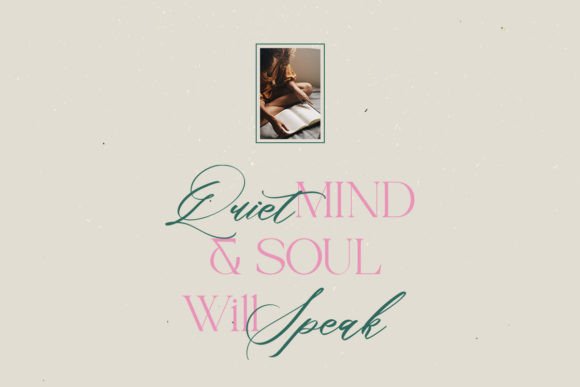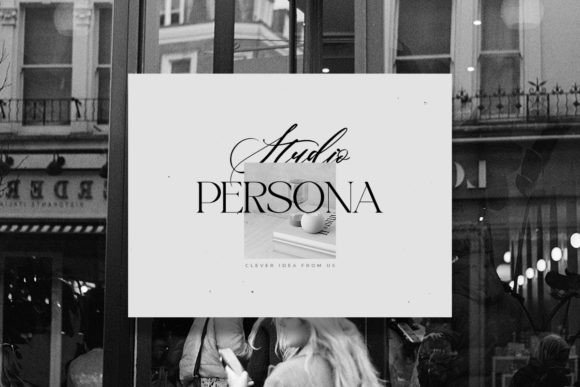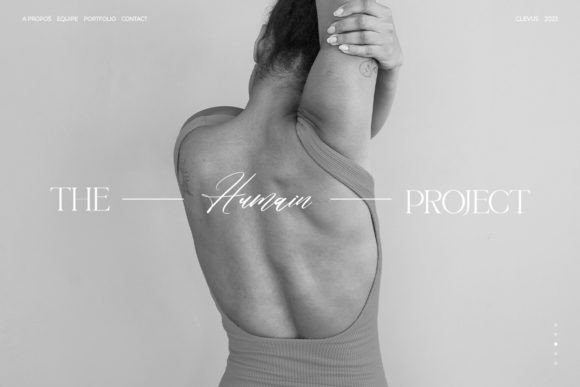
She Lost Her Mind Font
She Lost Her Mind Font Duo is a unique font design consisting of a combination of a classic serif font and a classic script handwritten font. It is specifically created to cater to the design needs of elegant and feminine themes, such as in magazines or branding materials. The serif font has a classic and timeless character, while the script font is designed with a personal and human touch, giving a modern and creative feel.